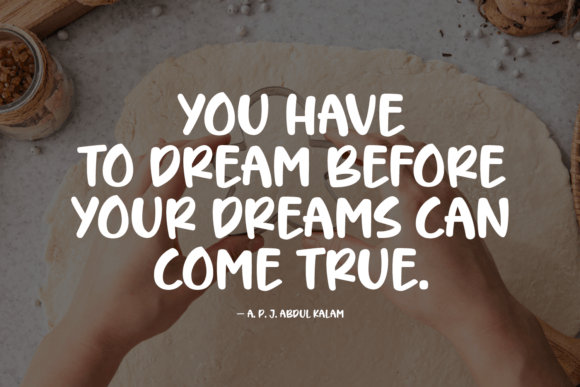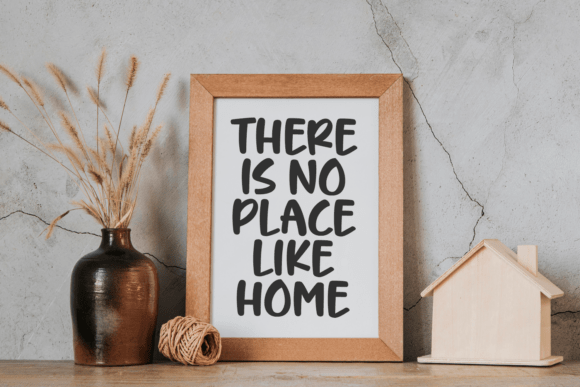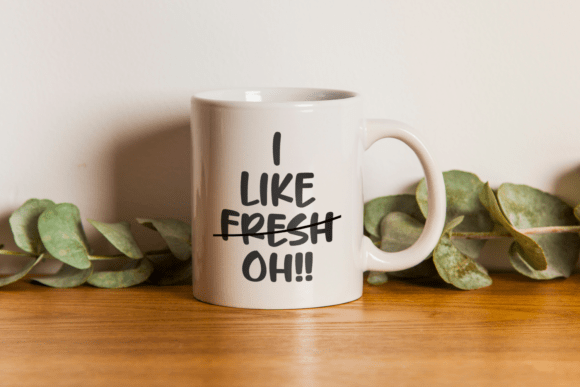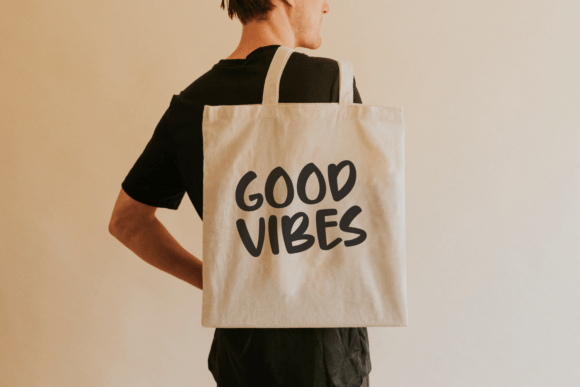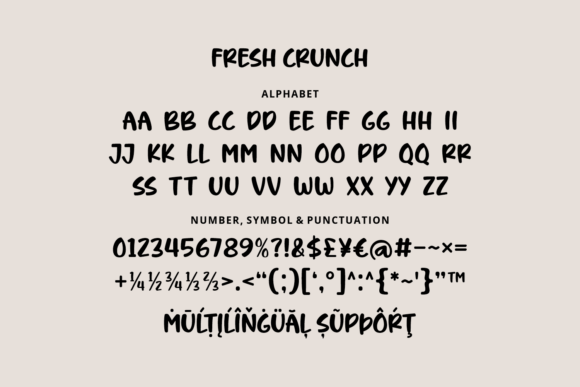
The Perfect Blend of Casual Charm and Creativity
As a designer, have you ever found yourself stuck in a creative rut, yearning for that perfect font to elevate your latest project? I know I have. It’s a feeling that’s hard to describe, but it’s like searching for the missing piece of a puzzle that’s been eluding you for hours. And then, suddenly, it hits you – the perfect font that brings your design to life.
Enter the Fresh Crunch Font, a hand-drawn masterpiece that exudes a casual, approachable feel. Its smooth, brush-pen-like strokes and inherent warmth make it the ideal choice for designs seeking a friendly, down-to-earth aesthetic. With its complete set of uppercase and lowercase letters, numerals, and punctuation, the Fresh Crunch Font is a versatile tool that’s sure to become a designer’s best friend.
Whether you’re working on a blog post, social media campaign, or even a product label, the Fresh Crunch Font is a valuable addition to your design toolkit. Its multilingual support and playfulness make it a great choice for designers looking to connect with a global audience and add a touch of personality to their work.
Fresh Crunch Font Key Features
- Font Family: Fresh Crunch Font is a sans-serif typeface designed to evoke a sense of modernity and freshness.
- Unique Characteristics: Fresh Crunch Font features a unique blend of geometric and organic elements, resulting in a distinctive and eye-catching aesthetic.
Review of Fresh Crunch Font
Overall, I’m quite impressed with the Fresh Crunch Font. It’s a bold, eye-catching font that’s perfect for creating attention-grabbing headlines and titles. ✨ The font’s unique blend of modern and retro elements gives it a fresh, youthful feel that’s sure to appeal to a wide range of audiences.
Here are some of the things that work well about the Fresh Crunch Font:
- Its versatility makes it suitable for a variety of design projects, from posters to digital interfaces.
- The font’s bold, chunky letters make it easy to read, even at small sizes.
- It’s highly customizable, allowing you to adjust the font weight, spacing, and other settings to fit your design needs.
- The font may not be suitable for body text, as it can be a bit overwhelming at larger sizes.
- Some of the letters may be difficult to read at very small sizes, particularly for users with vision impairments.
- Use it in combination with bold or italic text to add emphasis.
- Experiment with different font sizes to create visual hierarchy.
- Pair it with other fonts to create a unique and visually appealing design.
- Health and wellness marketing.
- Outdoor and sports advertising.
- Recipe titles and headings
- Labels for ingredients and cooking instructions
- Pair with a clean and minimalist background to emphasize the font’s playful feel
- Use bold and italic styles to create visual hierarchy and add emphasis
- Combine with food-related icons and illustrations to add a touch of whimsy
- Goal headings and objectives
- Daily and weekly schedule titles
- Pair with a modern and sleek design to convey a sense of professionalism
- Use color-coding to categorize goals and tasks, and use Fresh Crunch Font to highlight important deadlines
- Combine with inspirational quotes and images to add motivation and encouragement
- Self-care activity titles and headings
- Goal-setting and progress tracking
Overall, I’d recommend the Fresh Crunch Font for designers looking to add a bold, eye-catching touch to their projects. While it may have some limitations, its versatility and customizability make it a valuable addition to any design toolkit.